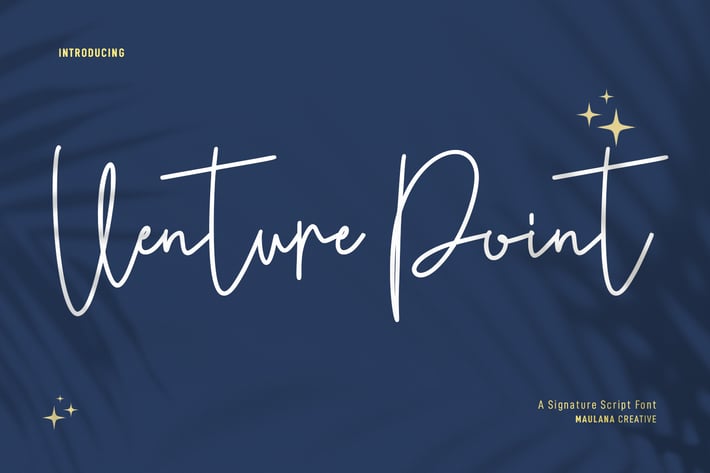
Venture Point Script Font
Venture Point is a modern signature script font. With upright consist mono-line stroke, fun character. To give you an extra creative work. Venture Point font support multilingual more than 100+ language. This font is good for logo design, Social media, Movie Titles, Books Titles, a short text even a long text letter and good for your secondary text font with sans or serif. Make a stunning work with Venture Point font.